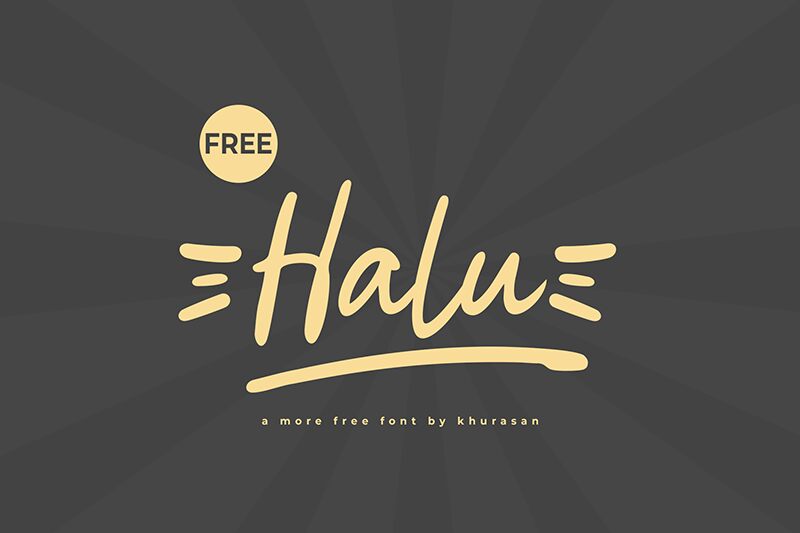
Halu
Halu font is a relaxed and expressive handwritten font from Khurasan. Modern at its core, the typeface takes on an organic feel with smooth, fluid movement that defines each character. It is casual and not overdone, making it ideal for easygoing designs that need a touch of innocence.